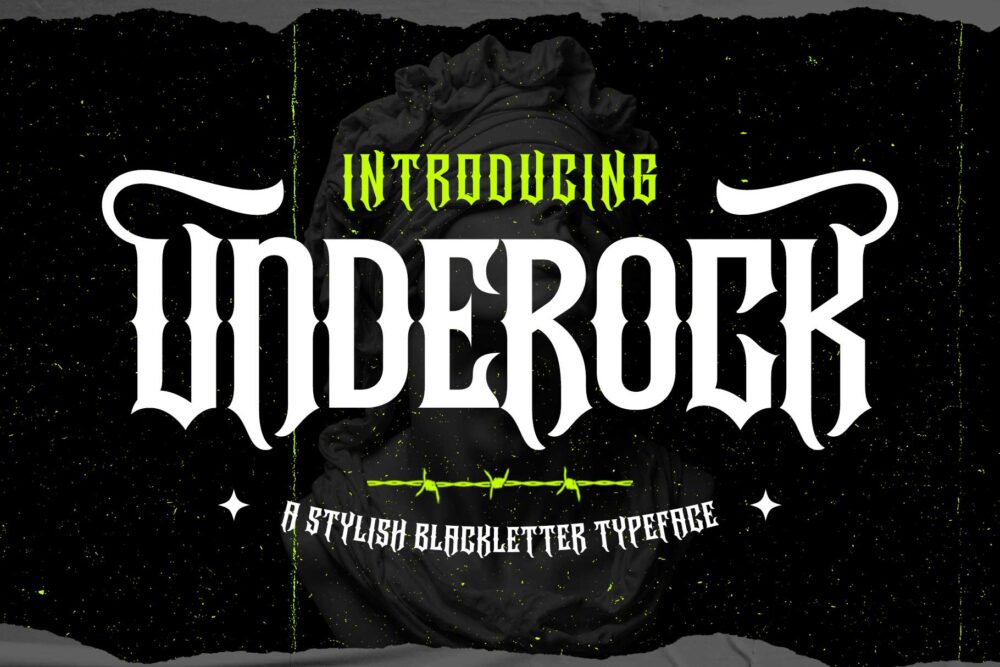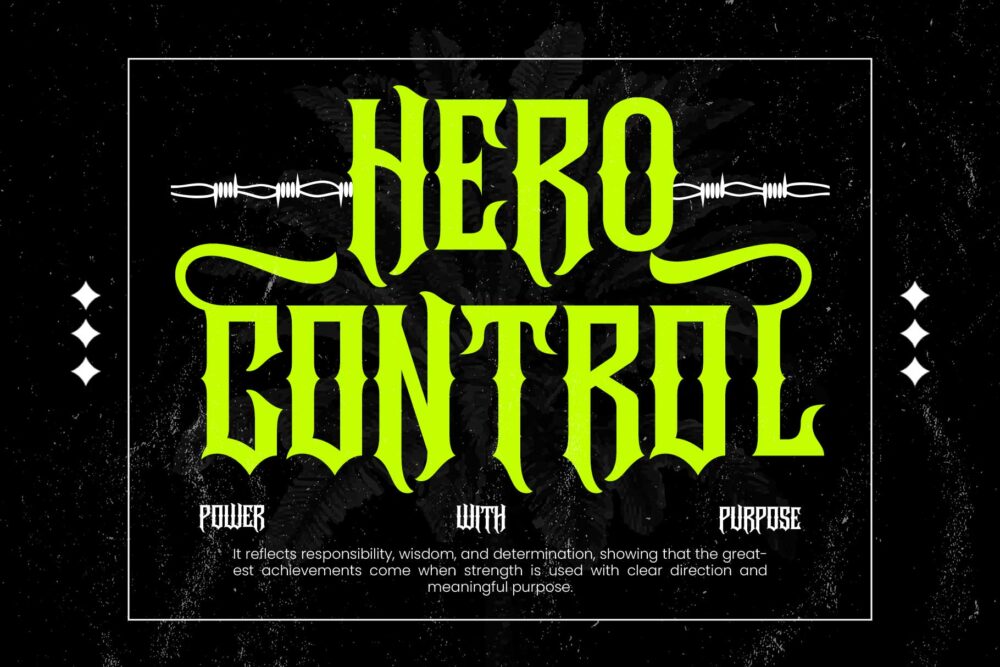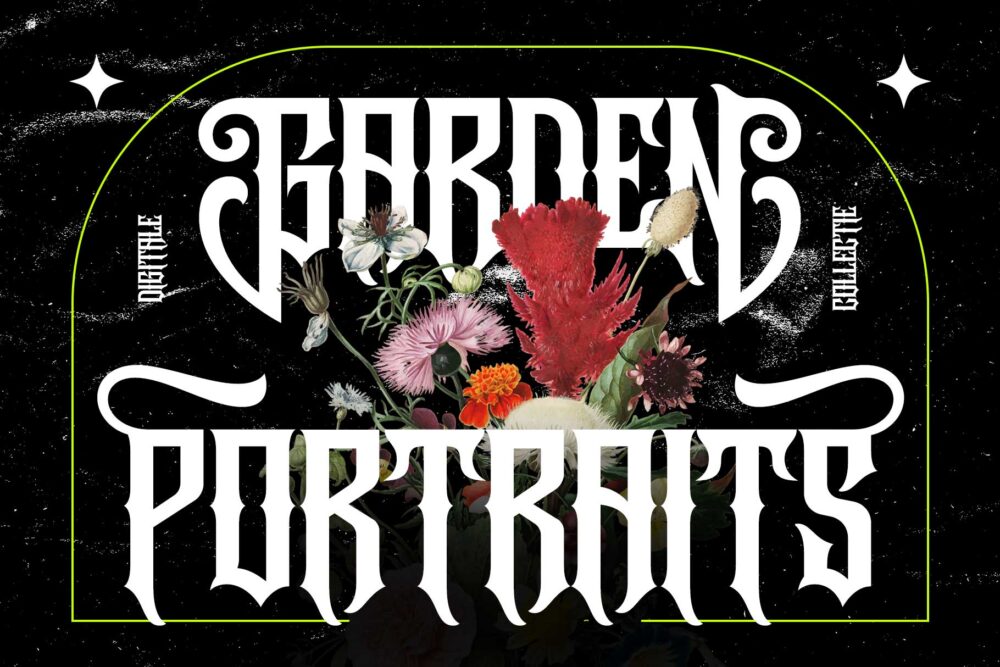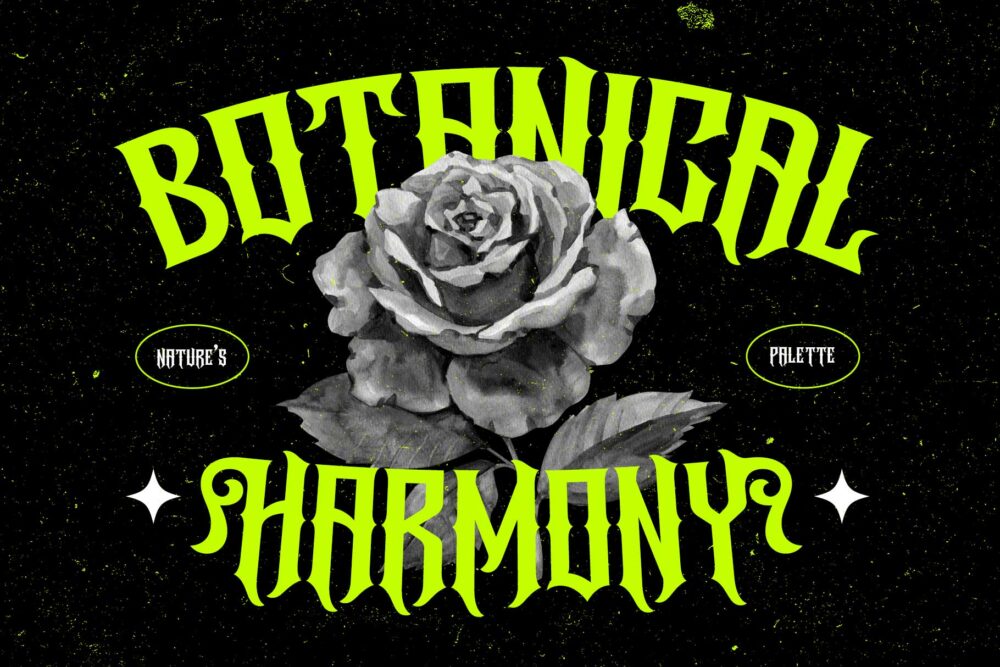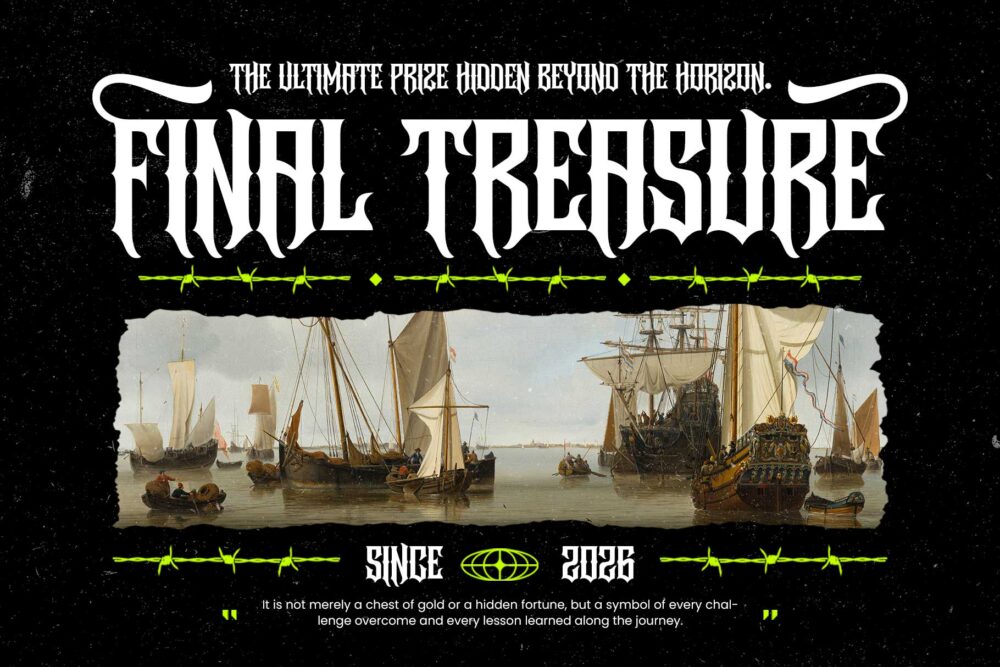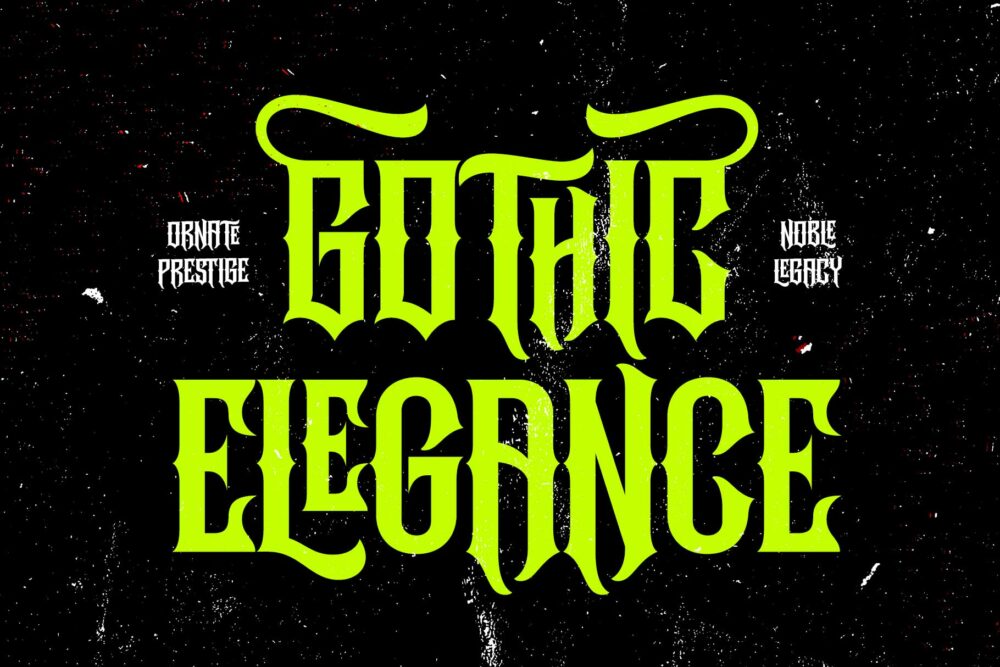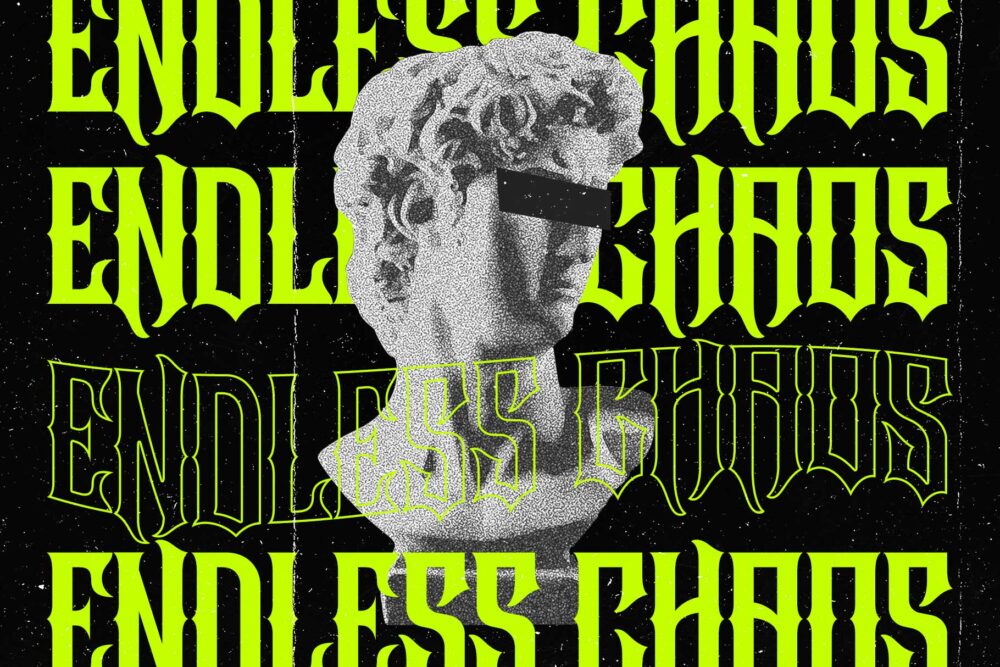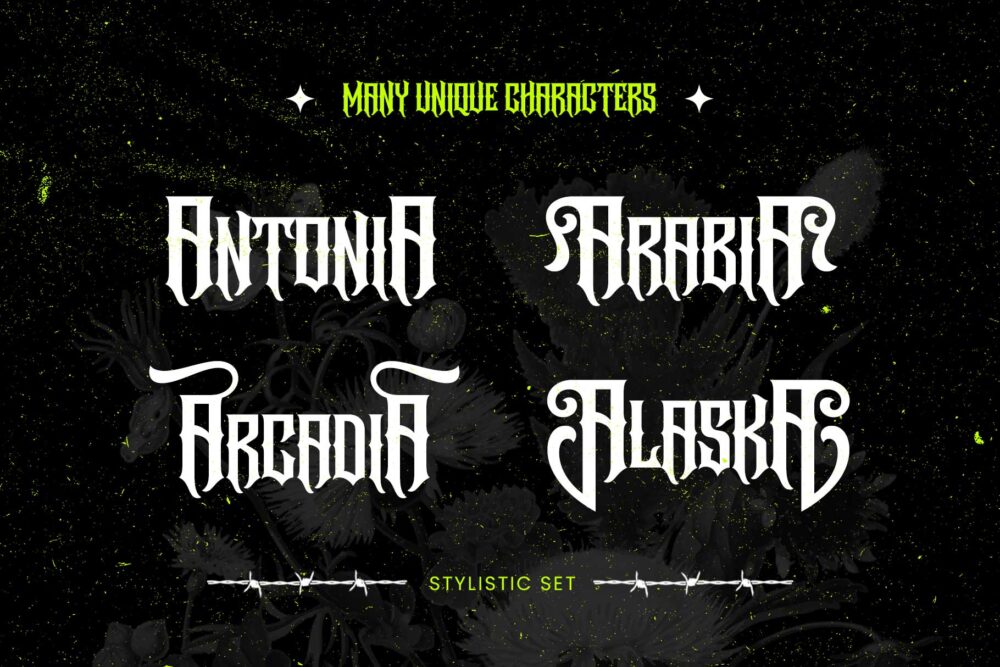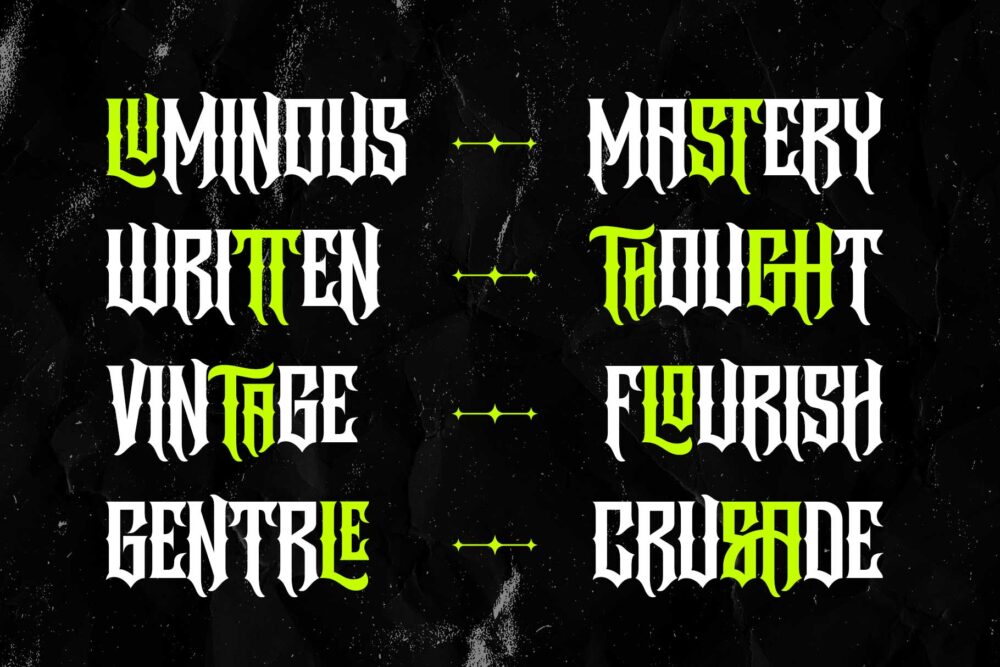
Underock blackletter hardcore typeface featuring Gothic-inspired letterforms, stylistic alternates, ligatures, and underground streetwear aesthetics for logos, branding, posters, and album artwork.
Underock
Underock is a bold display typeface that merges the timeless character of blackletter style with the raw intensity of hardcore typography. Inspired by underground culture, and Gothic lettering traditions, it features sharp letterforms, dramatic curves, and strong proportions that create a powerful and rebellious visual presence.
Designed for maximum creative flexibility, Underock includes a wide selection of stylistic alternates and distinctive ligatures, allowing you to craft unique lettering compositions with ease. Perfect for logos, posters, streetwear, branding, packaging, and editorial projects, Underock delivers a dark, expressive, and unforgettable typographic experience.
• All capitals character set
• Smallcaps
• Numbers & punctuations
• Stylistic alternates
• Stylistic set
• Multilingual support
Underock – Blackletter Hardcore Typeface